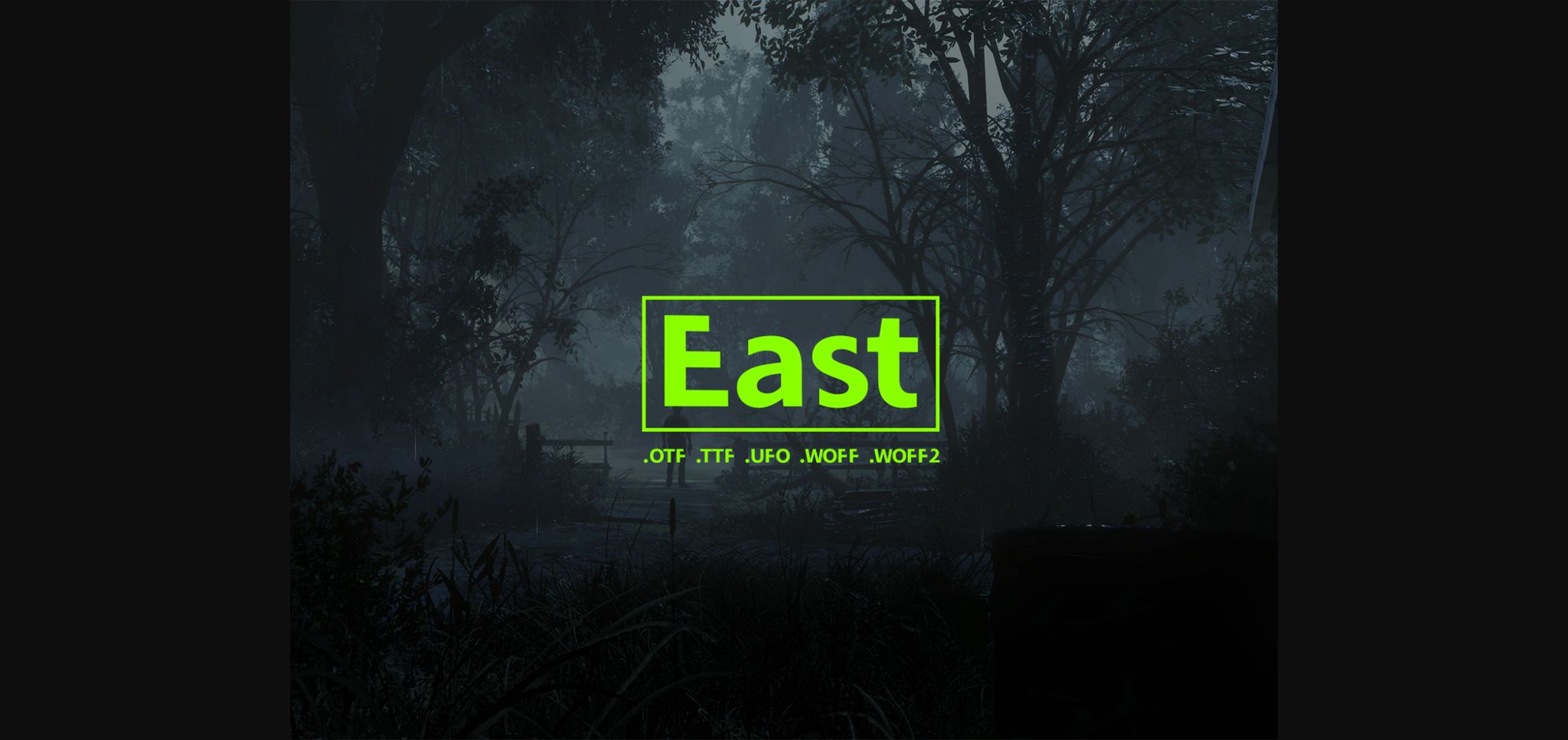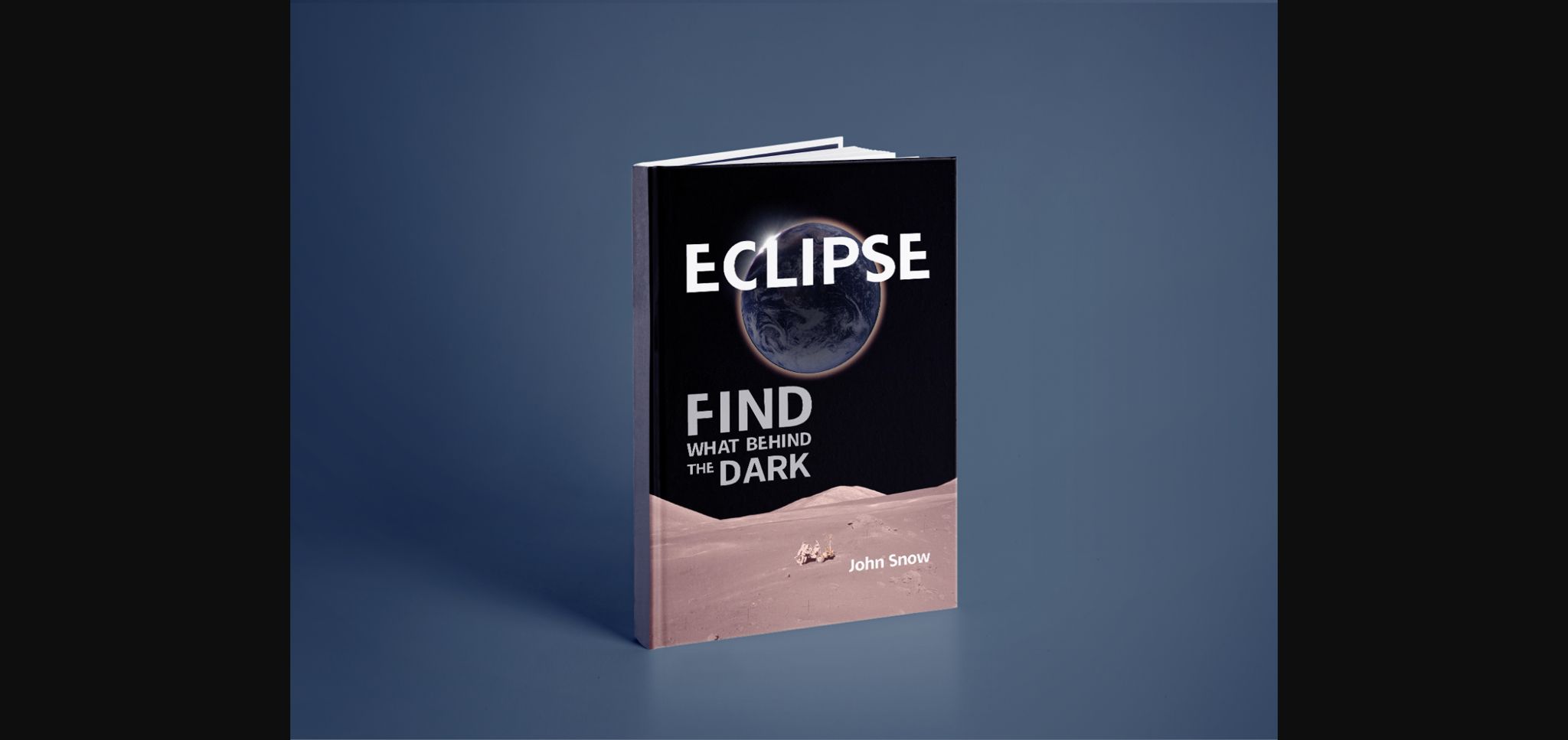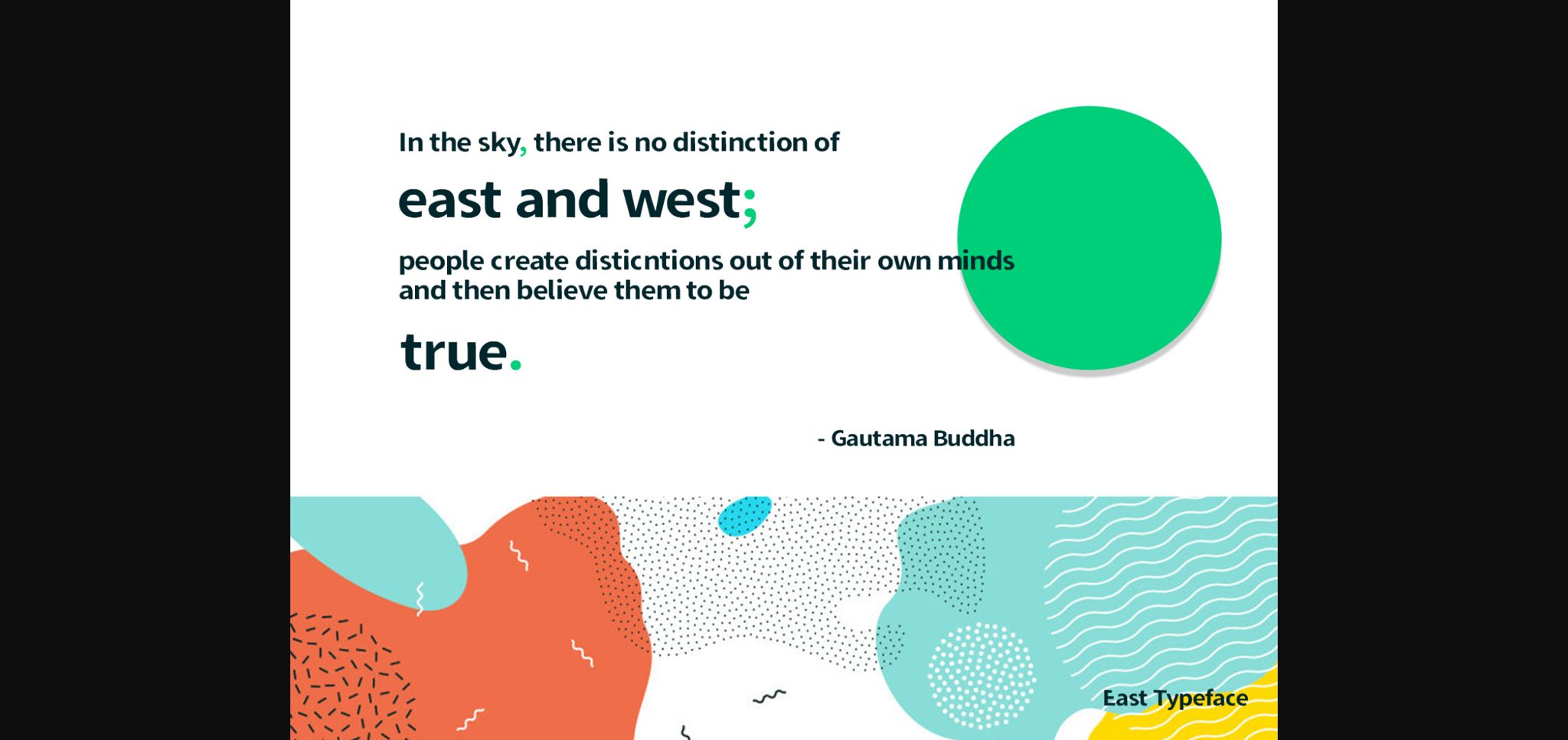
About East Font
East commands attention with its bold yet minimalistic sans serif design. Its striking appearance effortlessly enhances a diverse range of projects, adding a touch of modern sophistication that ensures they stand out from the crowd.
The beauty of East lies in its versatility. Whether you’re designing a sleek logo, crafting an eye-catching poster, or creating a minimalist website layout, East seamlessly integrates into any creative concept with ease. Its bold presence serves as a bold statement, capturing the viewer’s attention and leaving a lasting impression.
One of East’s standout features is its ability to maintain readability and clarity across various platforms and mediums. Whether viewed on screens or in print, East’s clean lines and well-defined characters ensure optimal legibility, enhancing the user experience and engagement.
Furthermore, East’s bold appearance adds a sense of confidence and authority to any design composition. Whether used for headlines, banners, or branding materials, East exudes a sense of strength and modernity that captivates and inspires.
In summary, East is more than just a font; it’s a versatile design tool that empowers you to create projects that leave a lasting impact. With its bold yet minimalistic aesthetic, East adds a touch of sophistication and modernity to your creative ideas. Embrace the boldness of East and watch as your designs stand out with confidence and style.